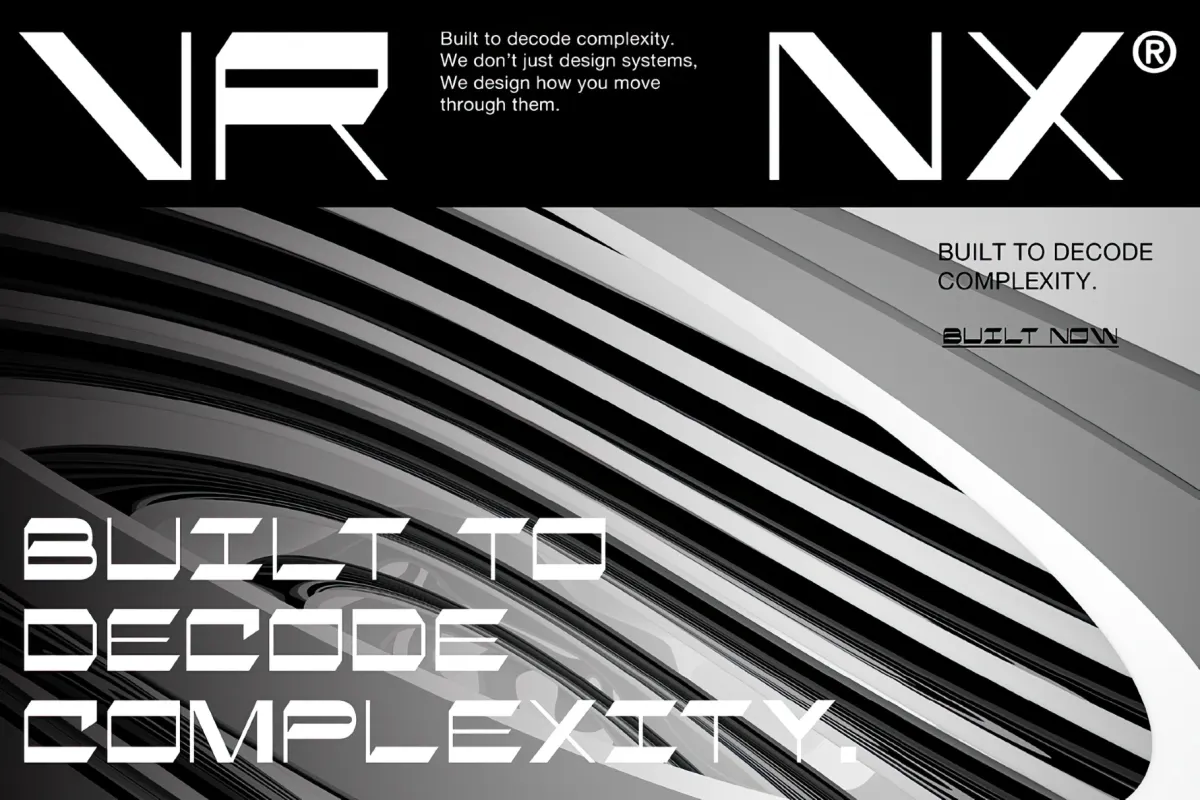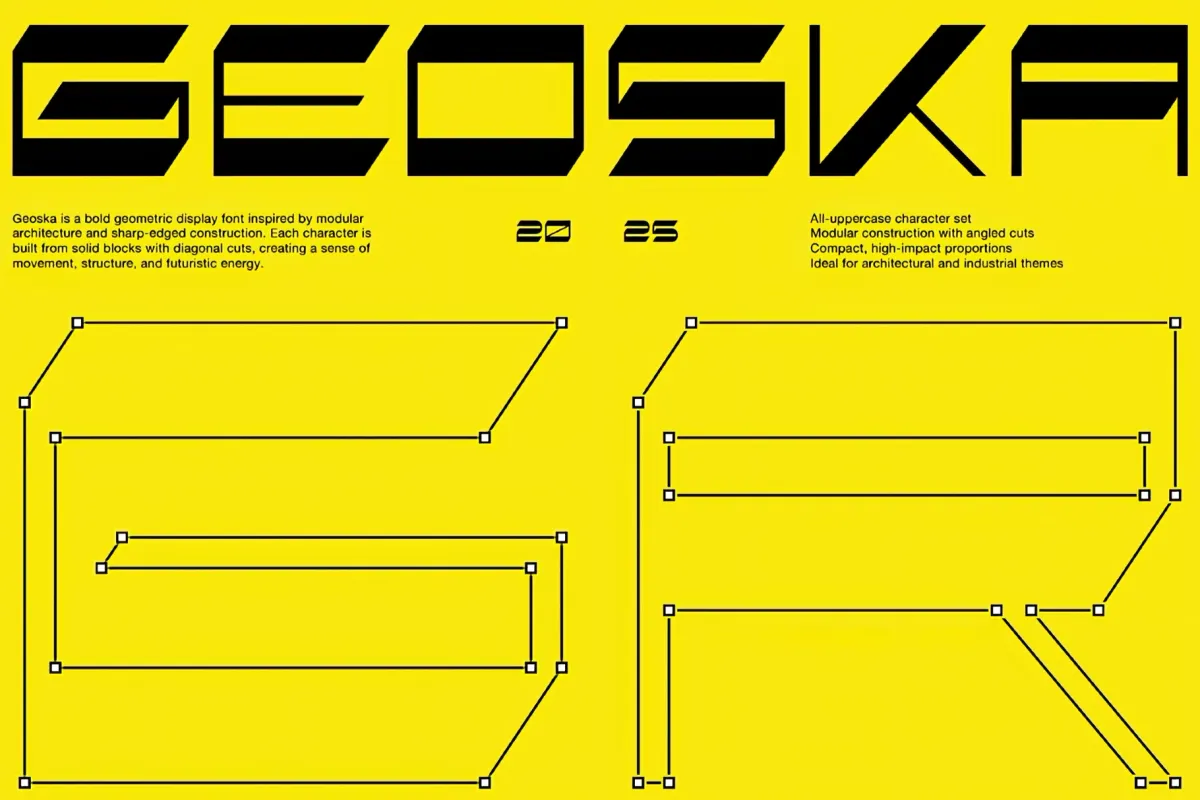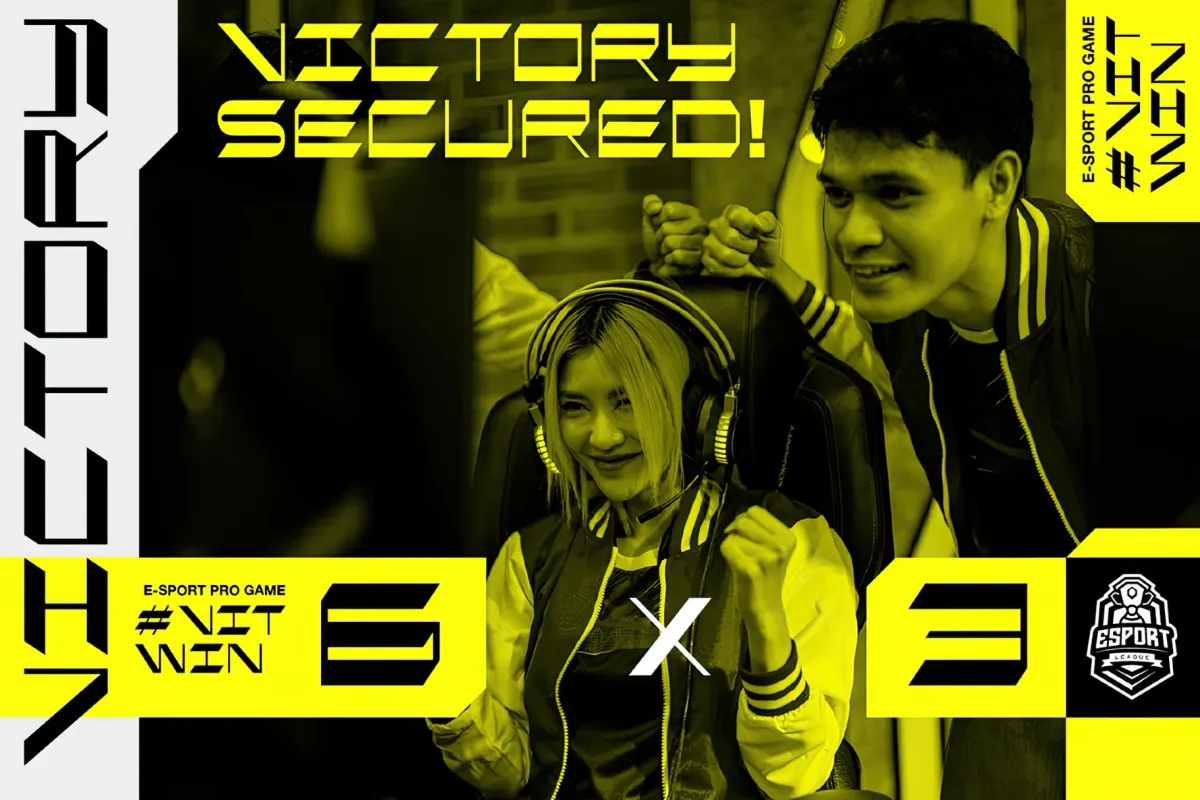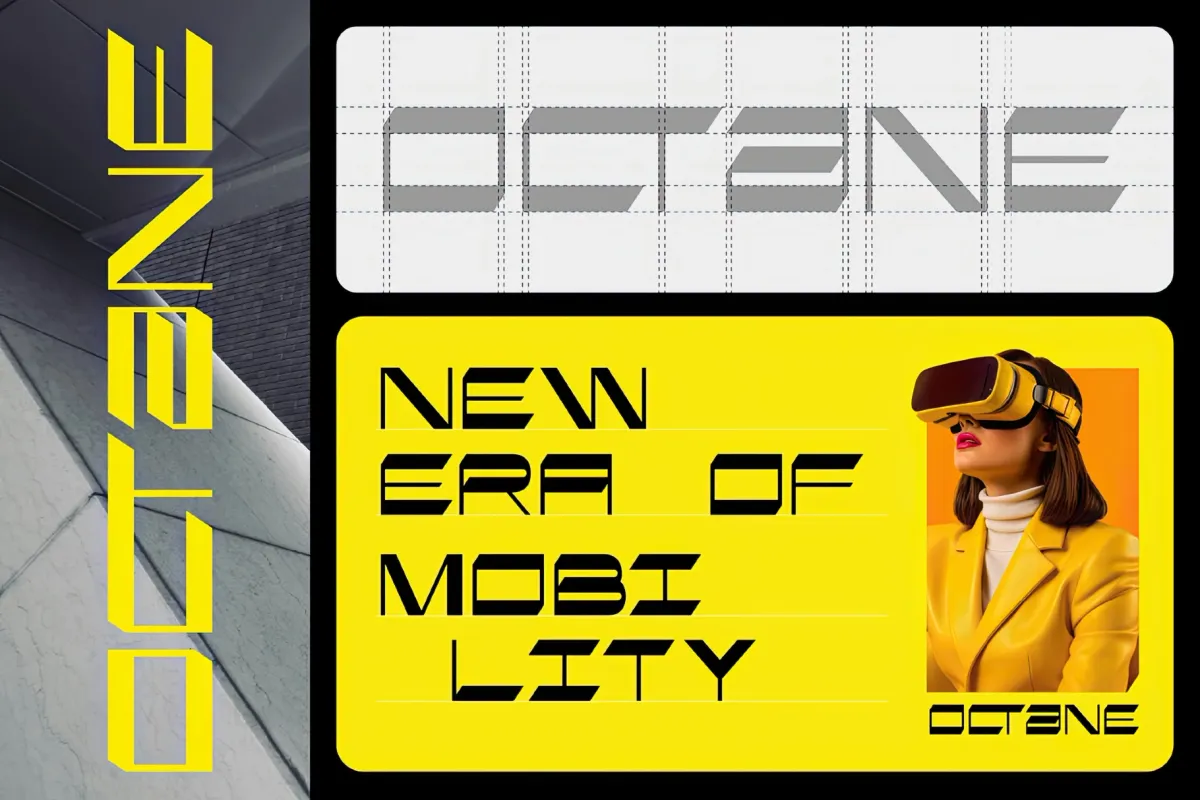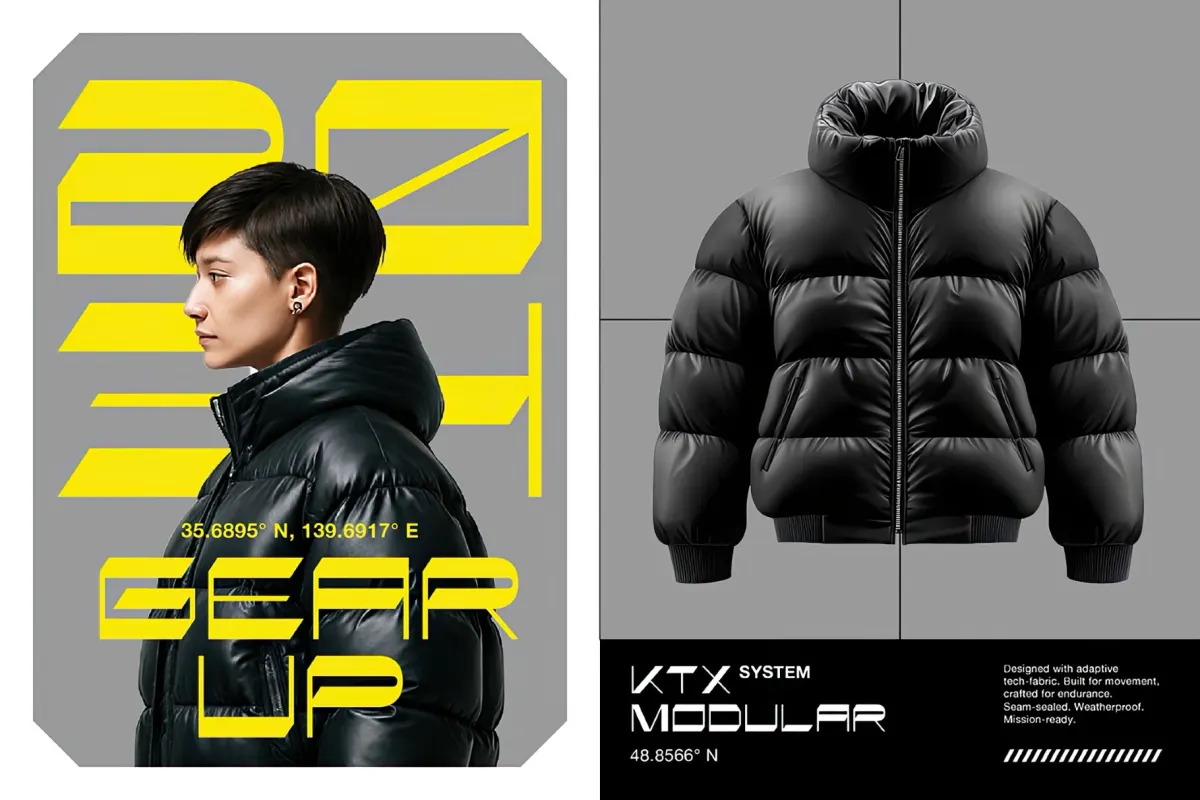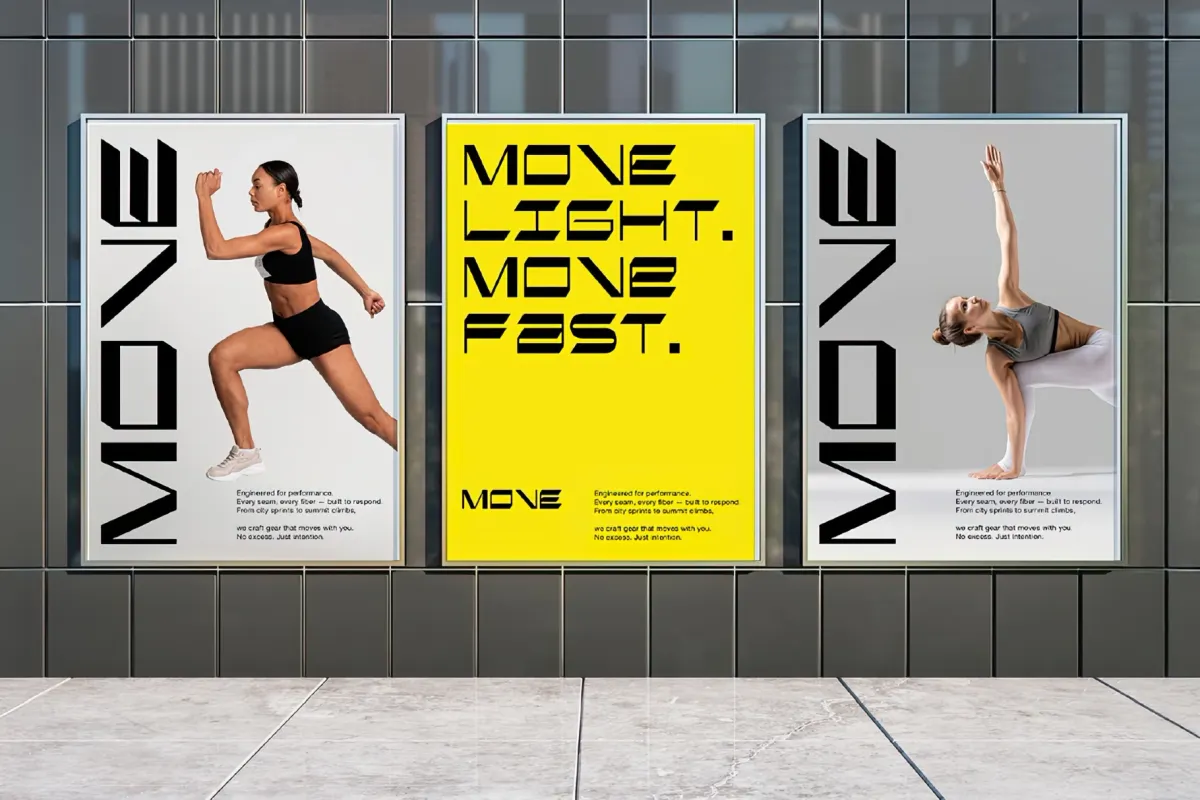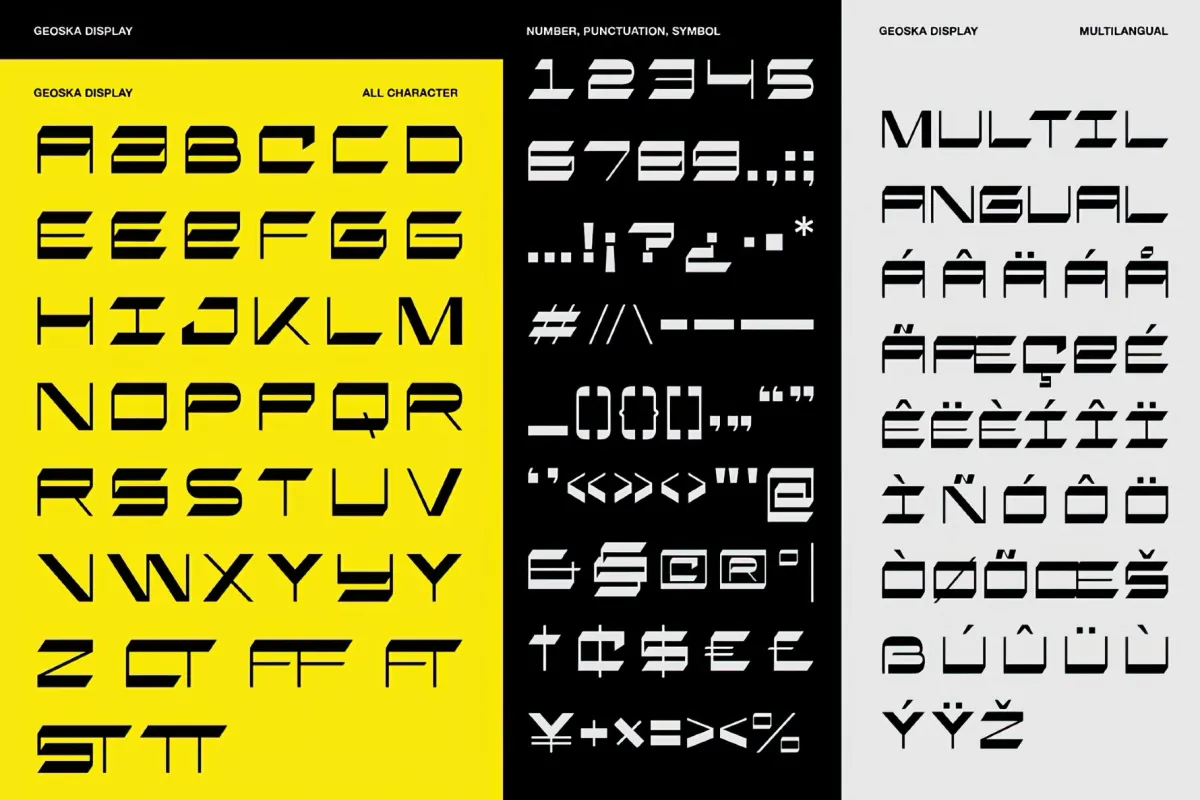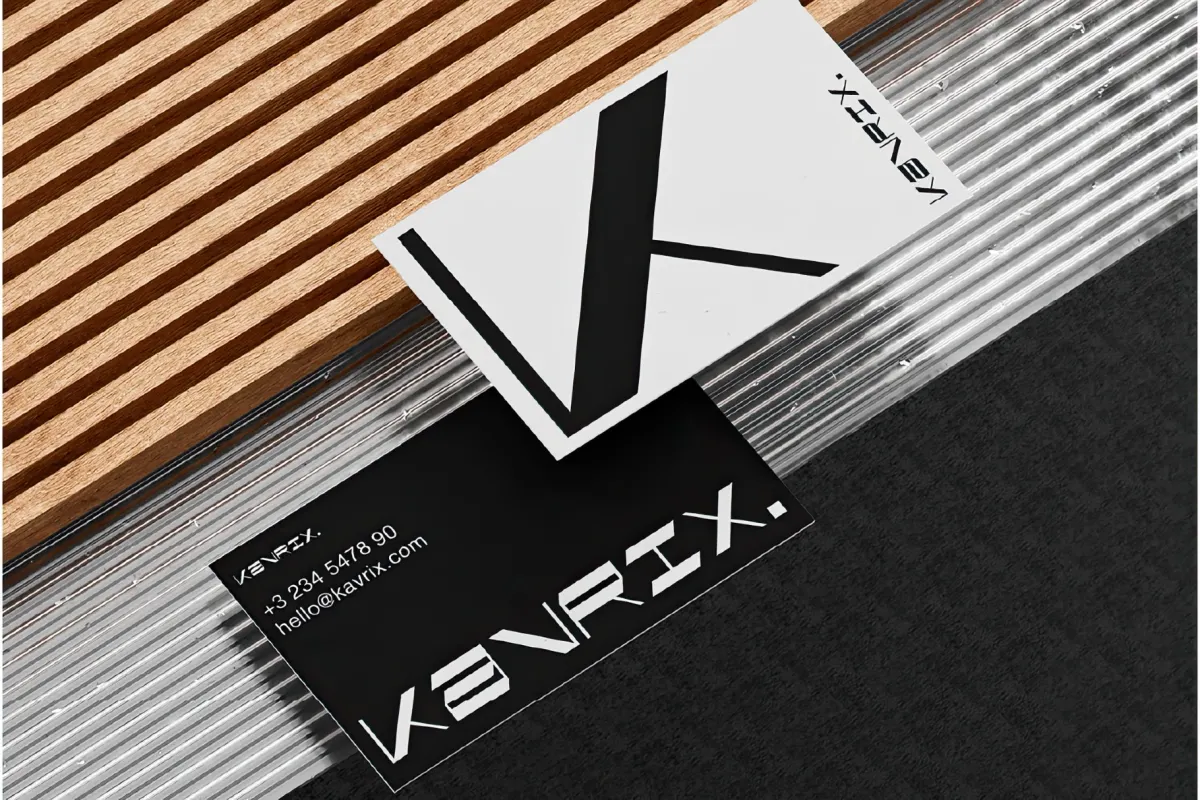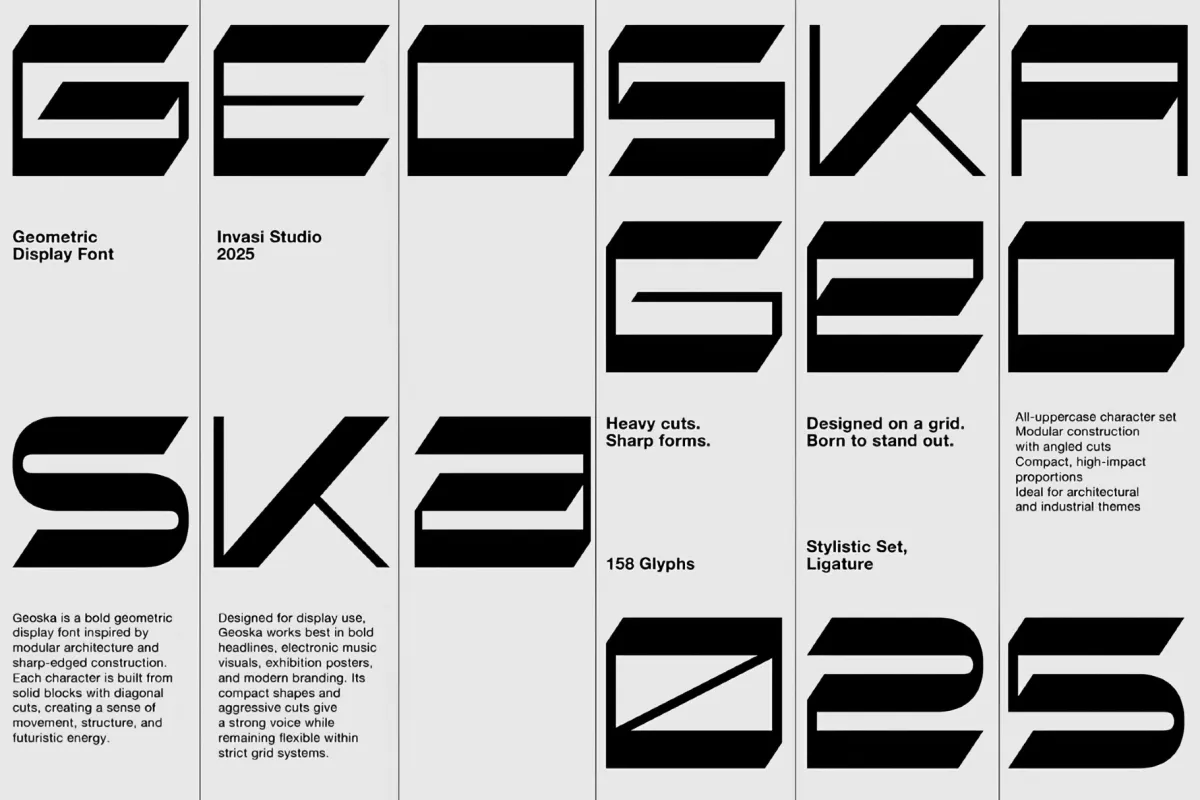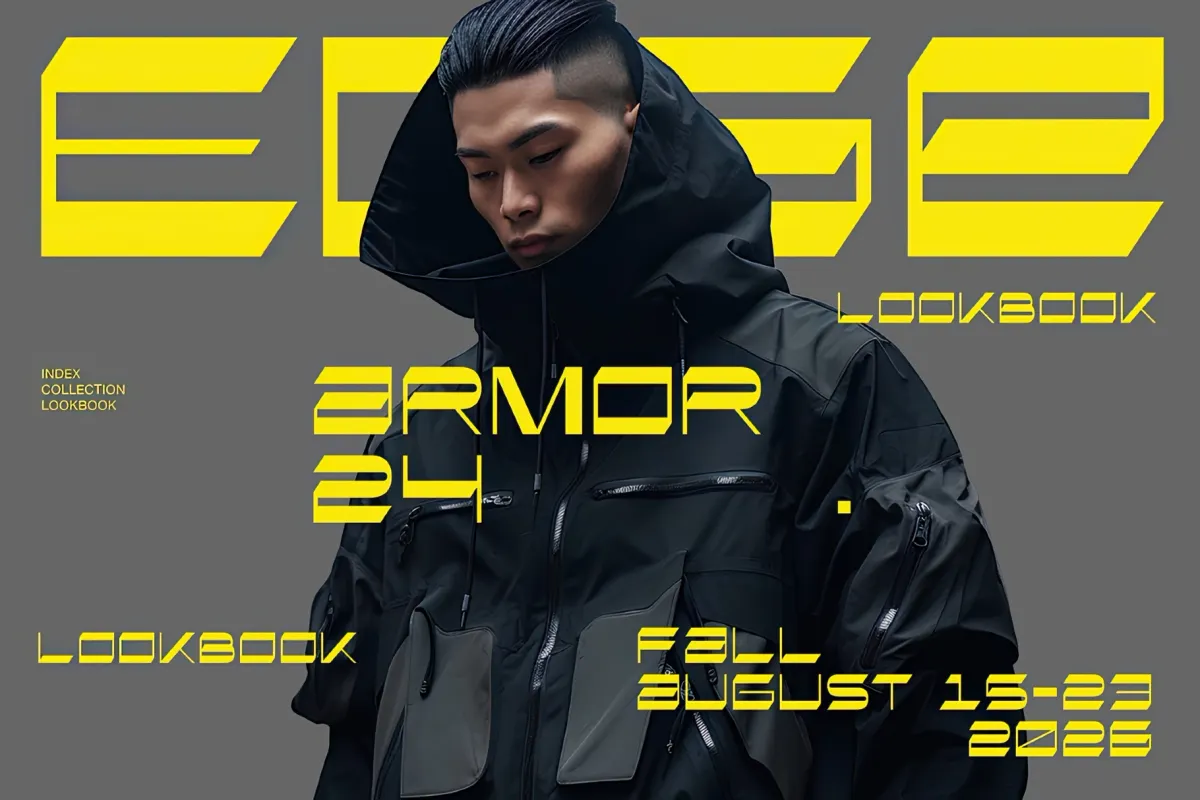
Geoska – Sci-fi Display Font
An engineer with a grudge obviously drew Geoska: every letter cut from solid blocks, sheared through with hard diagonals, snapped to a strict grid. This sci-fi display font runs all-caps and modular: compact, heavy proportions with angled cuts that read like machined metal panels. The mood is future-industrial: techwear tags, cockpit readouts, warehouse rave flyers.
Set it big and let the negative shapes do the work: headlines, poster titles, and logo lock-ups where the type is the whole design. A stylistic set and ligatures swap in alternate cuts, so a wordmark locks tighter or throws an unexpected angle. Put it on techwear and streetwear lookbooks, electronic and club posters, exhibition and gallery graphics, game and UI titling, or architectural and industrial branding.
• all-uppercase characters;
• stylistic set, ligatures, and alternate letters;
• multilingual Latin language support;
• numerals, punctuation, and currency.